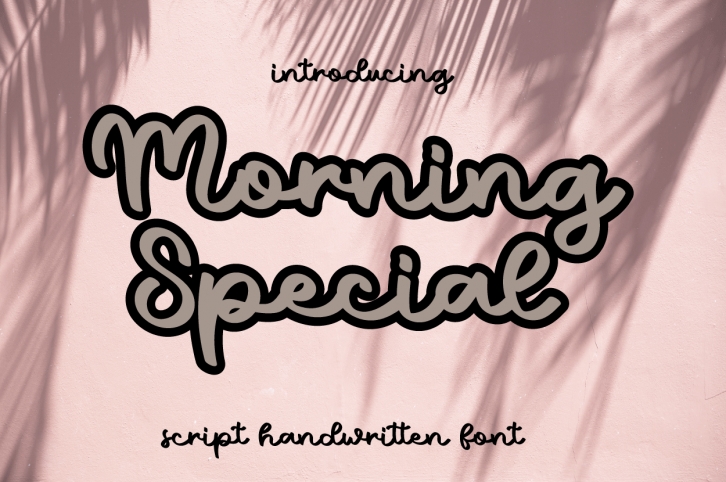
Morning Special is a sweet, romantic and round lettered script font. It looks stunning on wedding invitations, thank you cards, quotes, greeting cards, logos, business cards and every other design which needs a customized touch.